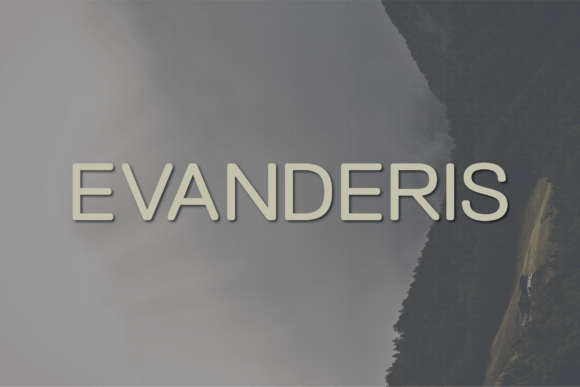
Have you ever stared at a blank page, trying to bring your design vision to life, only to be held back by the perfect font? For designers, finding the right typography can be a game-changer. That’s why we’re excited to introduce Evanderis Font, a modern, classy sans serif typeface designed to elevate your creative projects.
Evanderis Font is more than just a stylish font – it’s a versatile tool that can be used for a wide range of applications, from logos and wedding invitations to advertisements and magazine layouts. With its extensive character set, including numbers and punctuation, Evanderis Font is the perfect choice for designers who want to add a touch of sophistication to their work.
Evanderis Font Key Features
- Font Family: Evanderis Font is a sans-serif typeface, ideal for digital interfaces, signage, and publishing.
- Character Set: Supports a wide range of languages, including Latin, Cyrillic, and Greek, making it suitable for global applications.
- Unique Characteristics: Features a clean and modern design, with subtle rounded edges and a balanced x-height, resulting in improved readability and aesthetic appeal.
- Font Weight and Style: Available in Light, Regular, Medium, Bold, and Black weights, as well as Oblique and Italic styles, offering flexibility for various design applications.
Evanderis Font Review
As a designer, I’ve had the chance to play around with the Evanderis font, and here’s my honest review.
- The Evanderis font has a unique, elegant feel that makes it perfect for luxury or high-end branding.
- The font’s subtle flair and sophistication make it suitable for titles, headings, and other prominent text elements.
- The font supports a wide range of languages, including Latin, Cyrillic, and Greek scripts.
- The Evanderis font is available in various weights, from light to bold, making it easy to find the perfect match for your design.
- The Evanderis font might be too ornate for some designs, potentially making it hard to read for certain audiences.
- The font’s unique feel might not be suitable for every brand identity or design style.
The Evanderis font is a solid choice for designers looking to add a touch of luxury and sophistication to their designs. While it might not be the best fit for every project, it’s definitely worth considering for high-end branding and design applications.
For a professional look, use Evanderis Font for headings and a clean sans-serif font for body text.
For a cohesive look, use Evanderis Font consistently throughout your design.
For a polished look, use Evanderis Font for headings and a clean sans-serif font for body text.
Evanderis Font is ideal for:
1. Branding and identity design.
2. Editorial and publishing design.
3. Web design and development.
4. Print design and advertising.
Remember to use Evanderis Font consistently throughout your design to create a cohesive and professional look.
1. Use Evanderis Font for headings and subheadings to create visual hierarchy.
2. Pair Evanderis Font with a clean sans-serif font for body text to create a clear and readable design.
3. Experiment with different
Alternatives to Evanderis Font for Designers
Montserrat is a sans-serif font designed by Julieta Ulanovsky. It is a geometric font with a modern feel, making it perfect for digital design and modern branding. Use Montserrat when you need a clean and minimalistic look. Compared to Evanderis Font, Montserrat is more geometric and modern, whereas Evanderis Font has a more elegant and sophisticated feel.
Lato is a sans-serif font designed by Łukasz Dziedzic. It is a versatile font that works well for both digital and print media. Use Lato when you need a font that is easy to read and has a friendly feel. Compared to Evanderis Font, Lato is more casual and approachable, whereas Evanderis Font has a more formal and elegant feel.